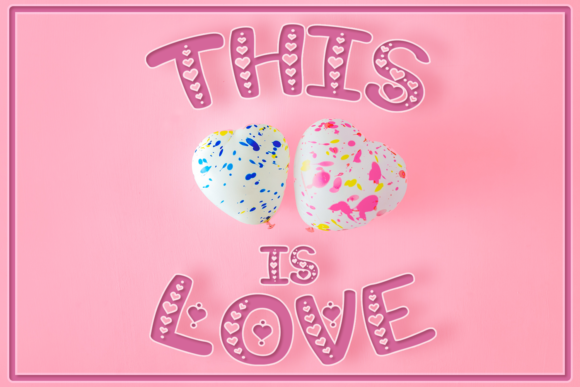
Introducing "This is Love," a captivating display font that will ignite the flames of romance in your designs!
Crafted by the renowned Anastasia Feya, this font is a labor of love, meticulously designed to bring a touch of enchantment to your messages. Each letter dances with delicate hearts, carrying the weight of your emotions with elegance and flair.
Adorned with 21 love-inspired designs, "This is Love" is the perfect choice for expressing the language of the heart. Whether you're crafting a heartfelt Valentine's Day card, designing a dreamy wedding invitation, or creating social media posts brimming with affection, this font will transform your words into a symphony of love.
Its warm and inviting aesthetic will captivate your audience, drawing them into the embrace of your message. The graceful curves and intricate details of each letter exude a sense of romance and charm, making it the perfect font for capturing the essence of love in all its forms.
With "This is Love," you'll have the power to express your emotions with a font that speaks volumes. Its versatility extends beyond romantic endeavors, lending enchantment to any design that seeks to evoke the warmth and tenderness of love.